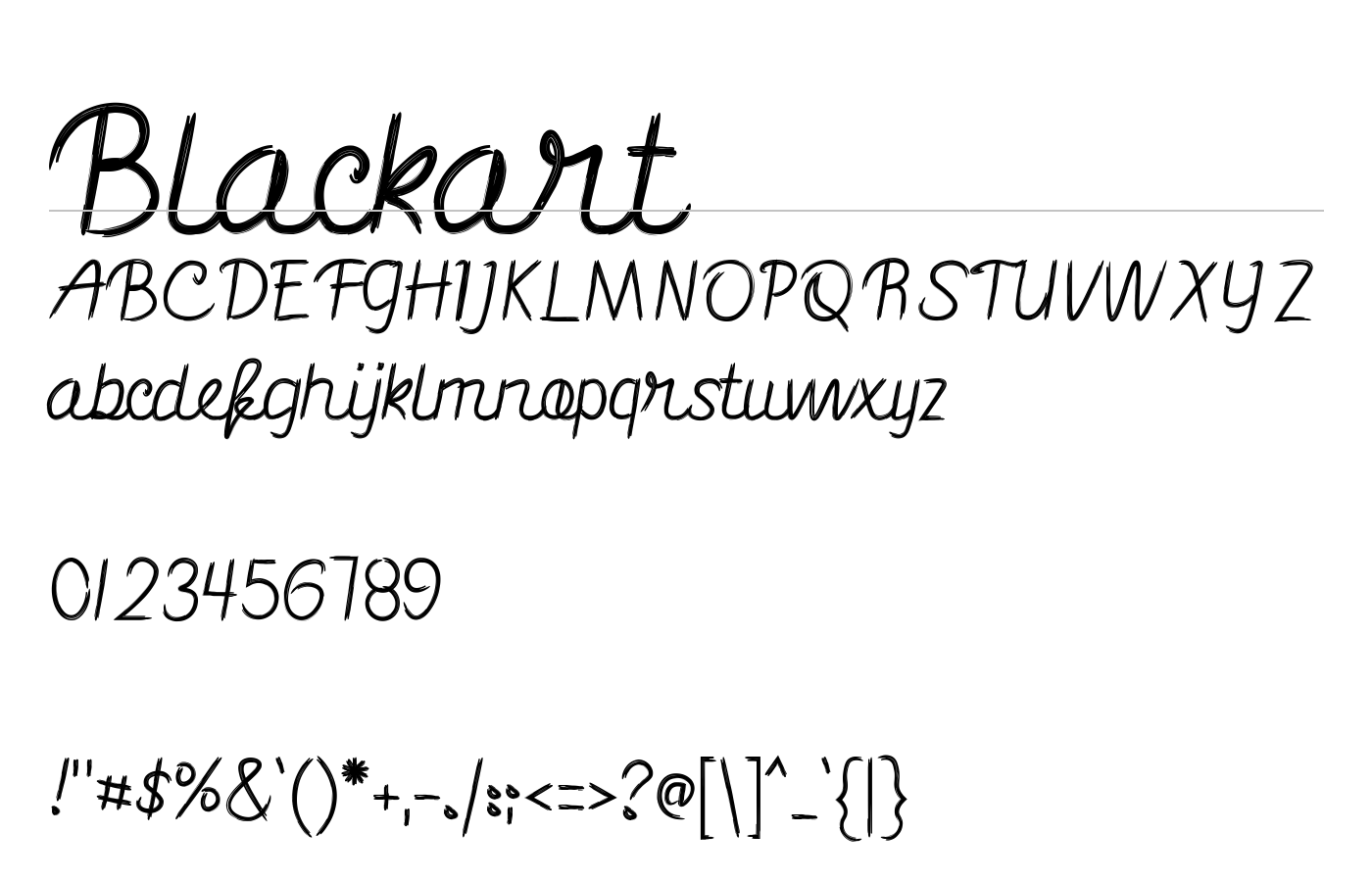
Blackart Font is a lively and expressive script font with a hand-drawn feel, featuring slender, slightly condensed letterforms with moderate contrast and distinctive, fluid strokes. Its casual yet elegant style makes it ideal for creative branding, invitations, and artistic projects that seek a personal and approachable touch while maintaining sophistication. This font shines in headlines, logos, and decorative uses where a unique, handcrafted vibe is desired.
Blackart Font
About Blackart Font
| Font family | Blackart Font |
| Designer | Imron Rosyidi |